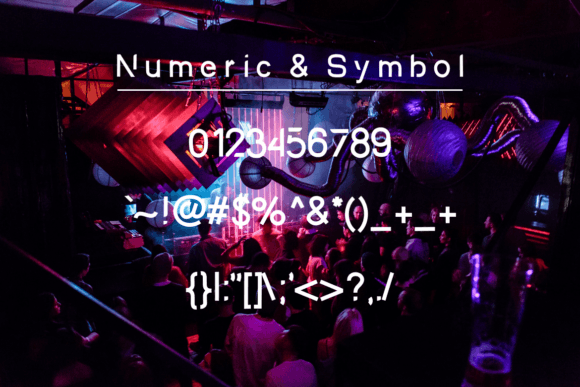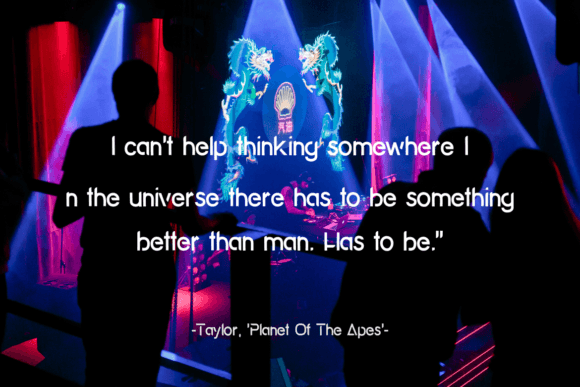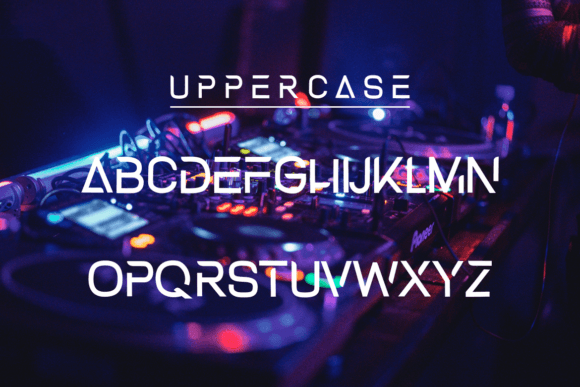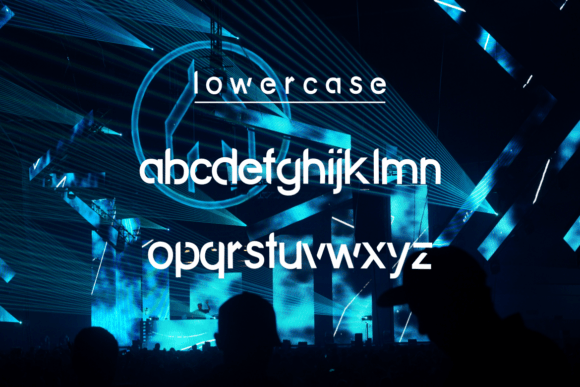
The Alerich Font: A Modern, Futuristic Display Font with a Quirk
I still remember the design project that led me to discover the Alerich font. I was working on a futuristic-themed branding campaign for a tech startup, and I was struggling to find the perfect font that would capture the essence of innovation and modernity. That’s when I stumbled upon Alerich, a quirky yet sleek display font that instantly caught my attention.
As I explored the font, I realized that its unique blend of futuristic and playful elements made it an excellent choice for a wide range of applications, from digital displays to print materials. In this article, I’ll share my experience with Alerich, including its features, how to use it on different platforms, and some similar font alternatives.
An Honest Review of Alerich Font
What I Love About Alerich ✨
• ✅ Unique and quirky design: Alerich’s futuristic style sets it apart from more traditional fonts.
• ✅ Highly legible: Despite its quirky design, Alerich remains easy to read, even at smaller sizes.
• ✅ Versatile: This font can be used for a wide range of applications, from digital displays to print materials.
• ✅ OpenType features: Alerich supports OpenType features, including glyphs and stylistic alternates, which add to its creative possibilities.
• ⚠️ Limited use for body text: Due to its display nature, Alerich might not be the best choice for lengthy body text.
• ⚠️ Some characters may require adjustment: Certain characters, like the lowercase “l” and “I”, might need adjusting to ensure optimal spacing and readability.
The Backstory of Alerich Font
Alerich was designed by a team of creatives who aimed to create a font that would capture the essence of modernity and innovation. Inspired by futuristic themes and sci-fi movies, Alerich’s unique design combines sleek lines with quirky elements, making it perfect for designers looking to add a touch of personality to their work.
Q: What type of projects is Alerich best suited for?
A: Alerich is ideal for projects that require a modern, futuristic feel, such as tech branding, digital displays, and sci-fi themed designs.
Q: Can I use Alerich for body text?
A: While Alerich is highly legible, it’s primarily designed for display purposes. For lengthy body text, you may want to consider a more traditional font.
Q: Does Alerich support OpenType features?
A: Yes, Alerich supports OpenType features, including glyphs and stylistic alternates, which can add creative possibilities to your designs.
Q: Is Alerich suitable for print materials?
A: Absolutely! Alerich can be used for a wide range of print materials, from business cards to posters, as long as you’re looking for a modern, futuristic feel.